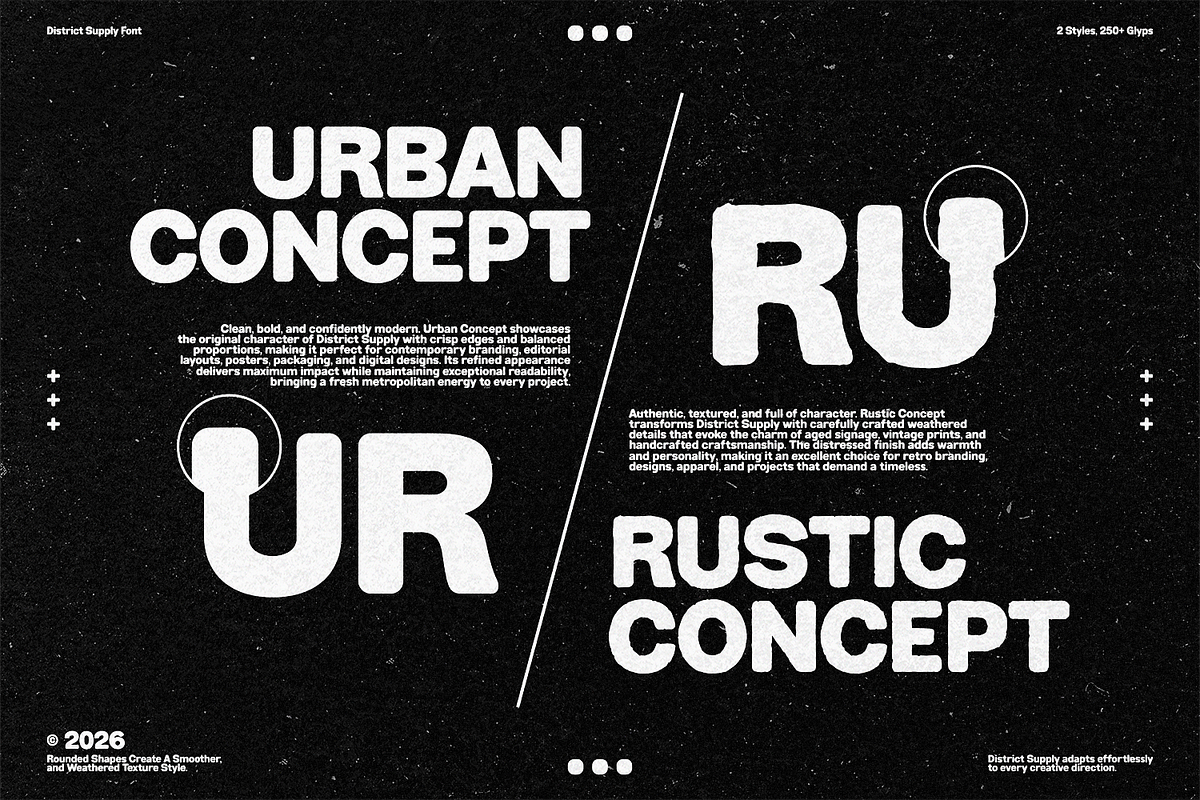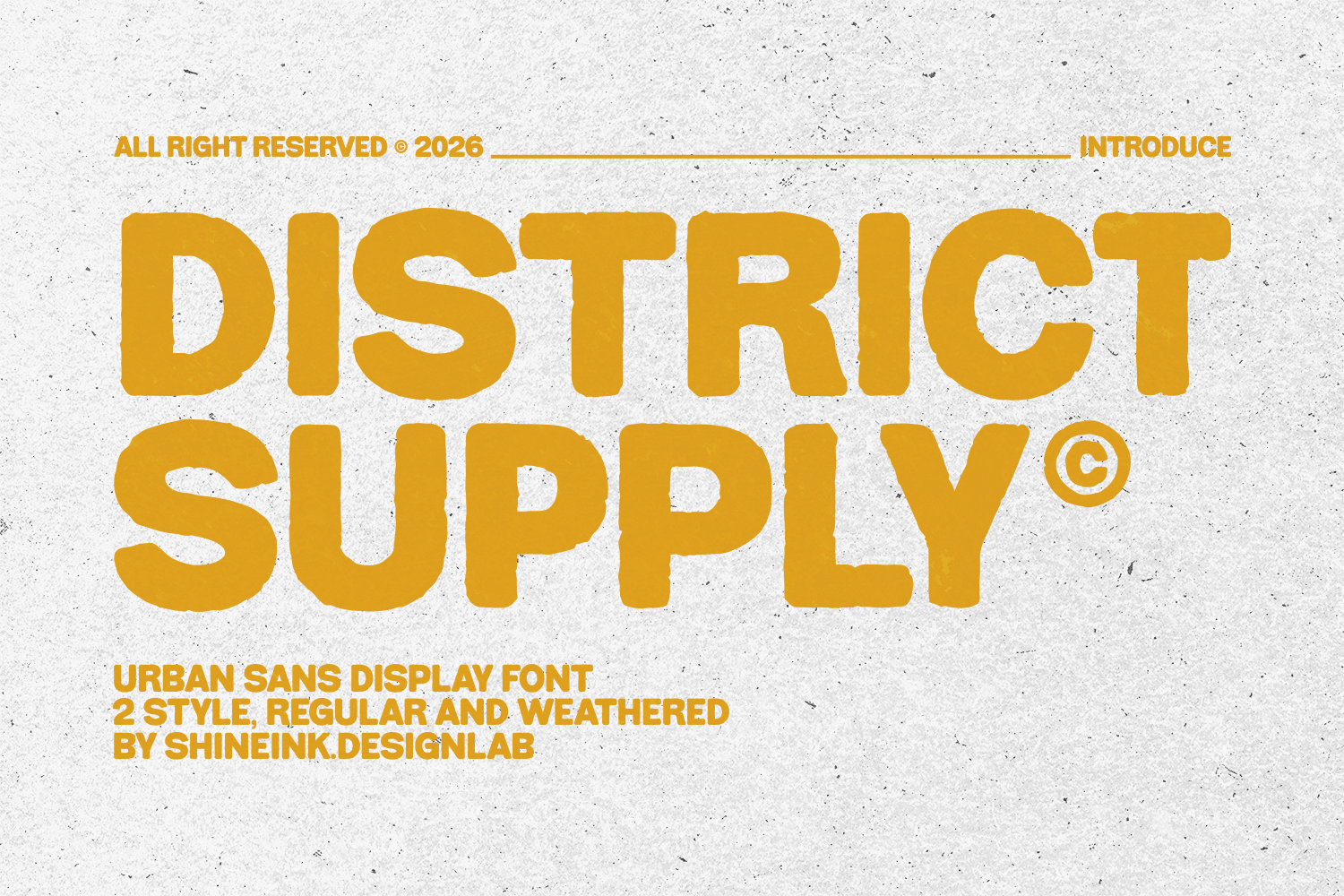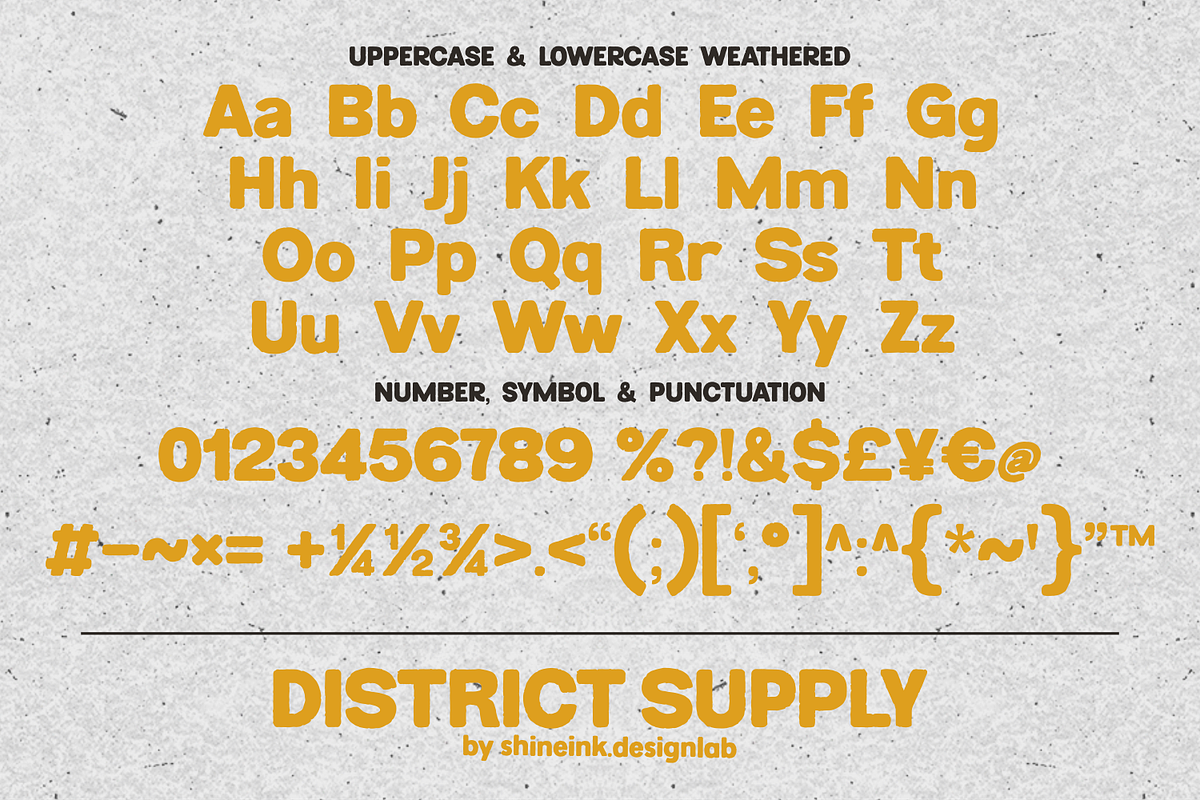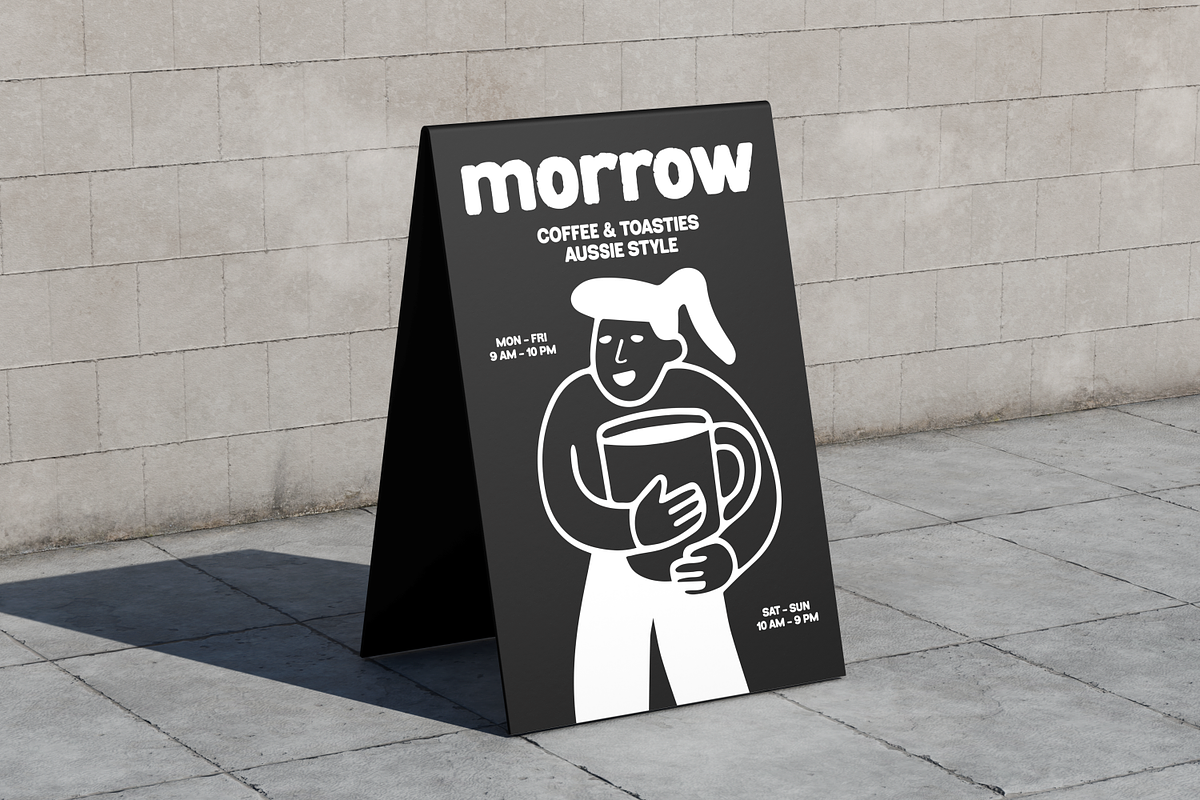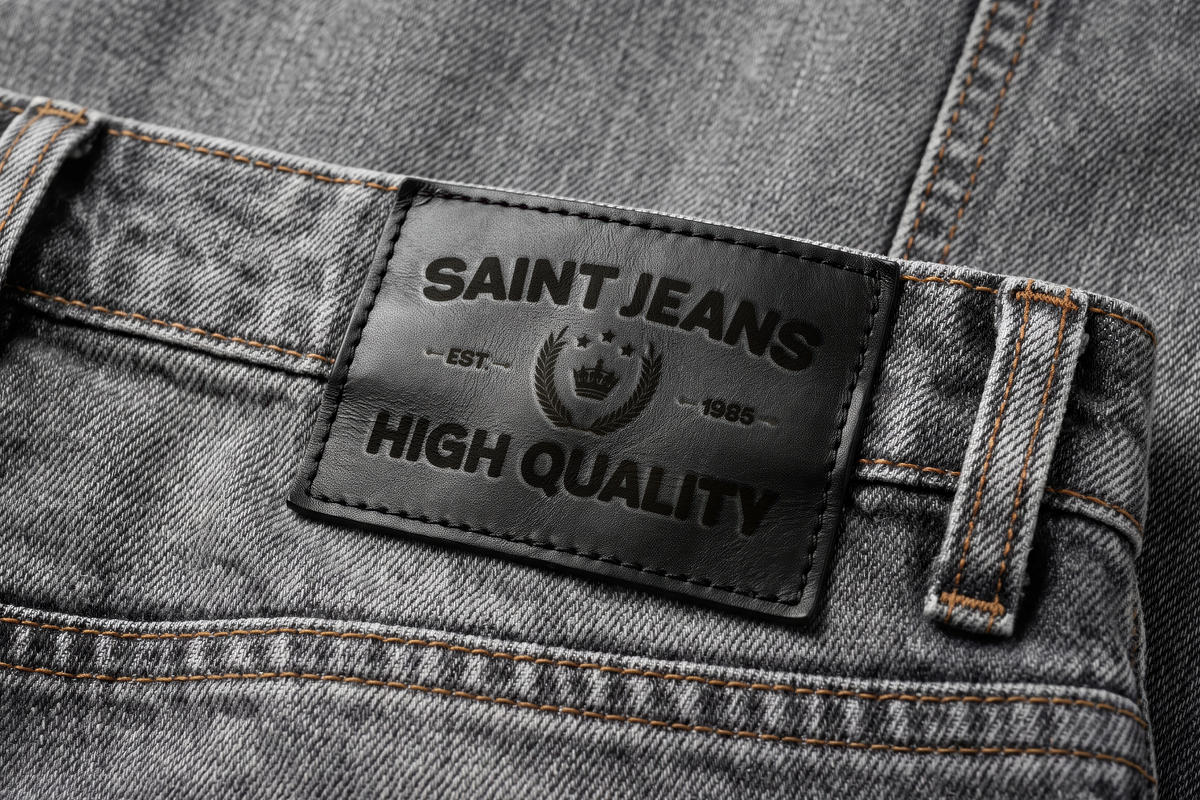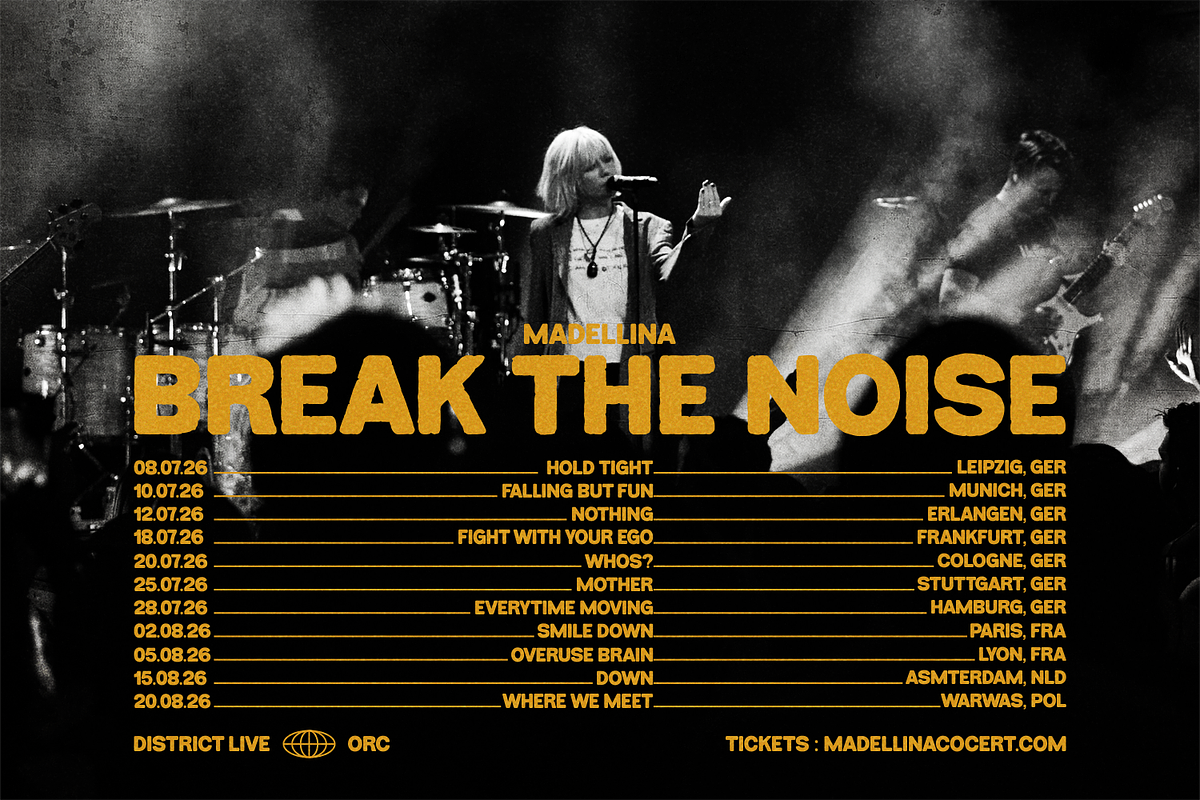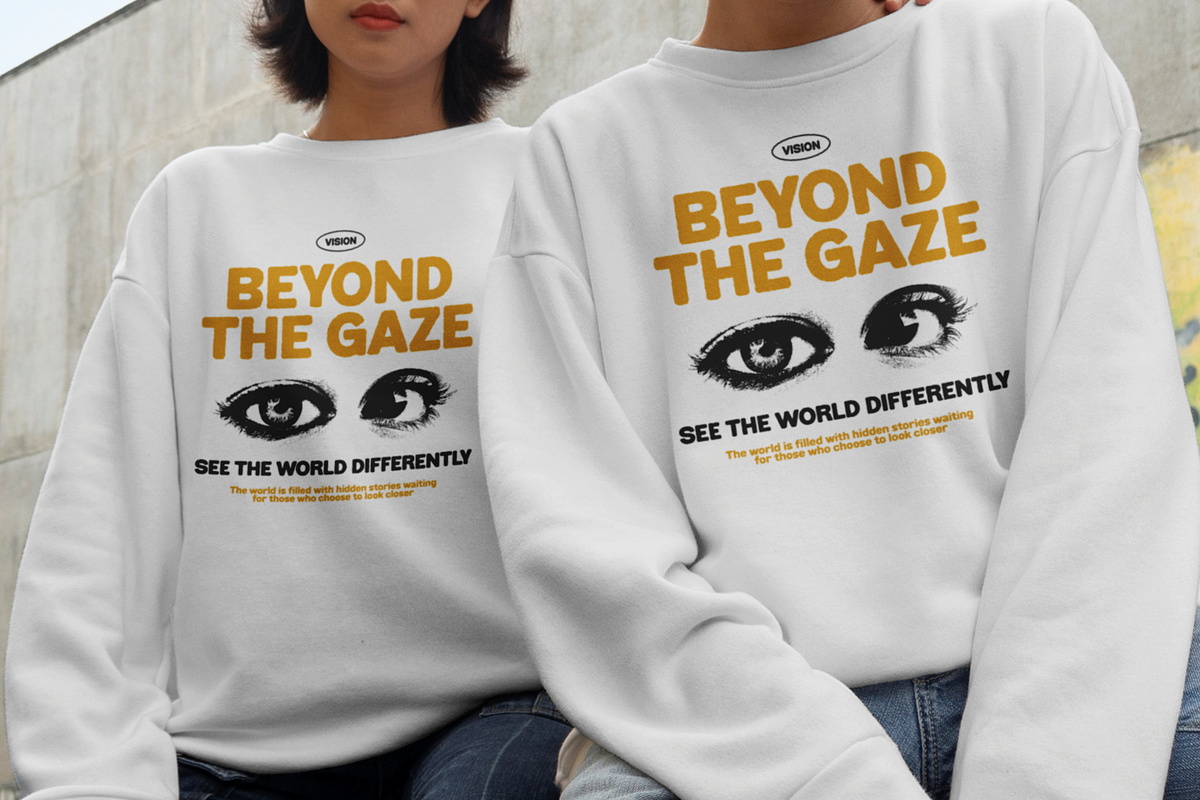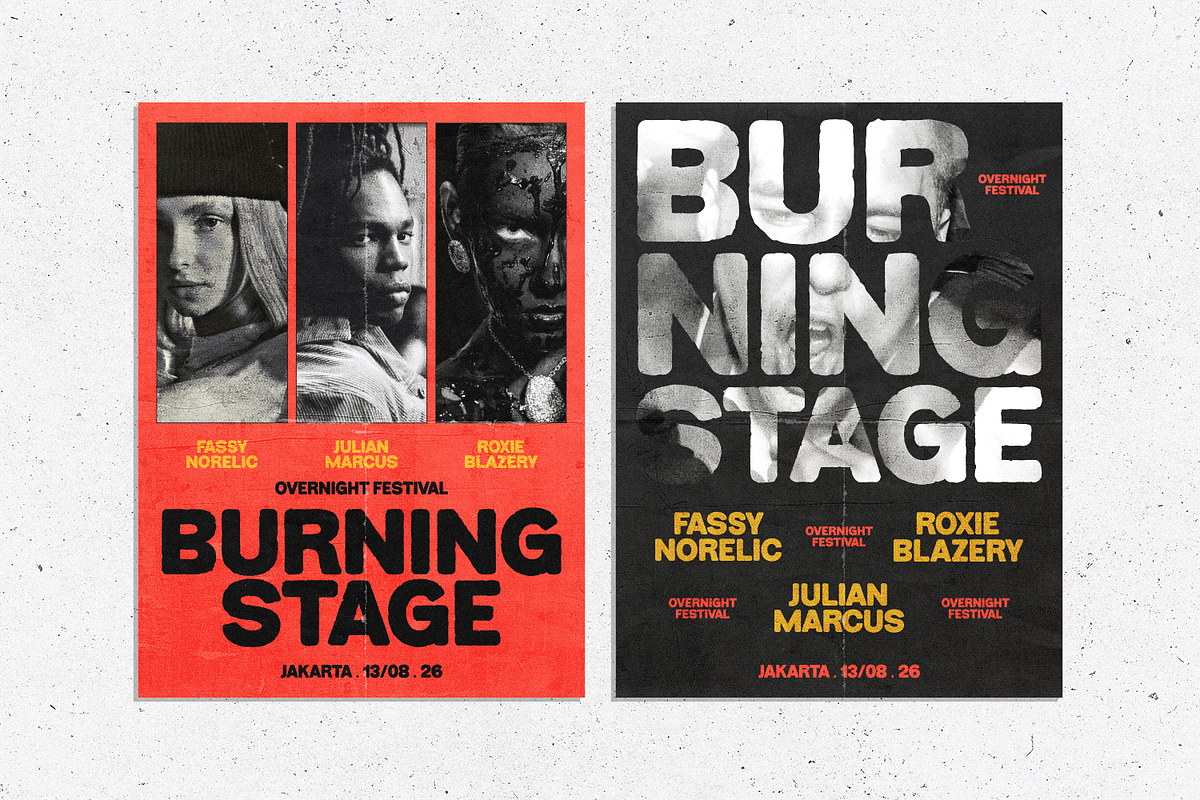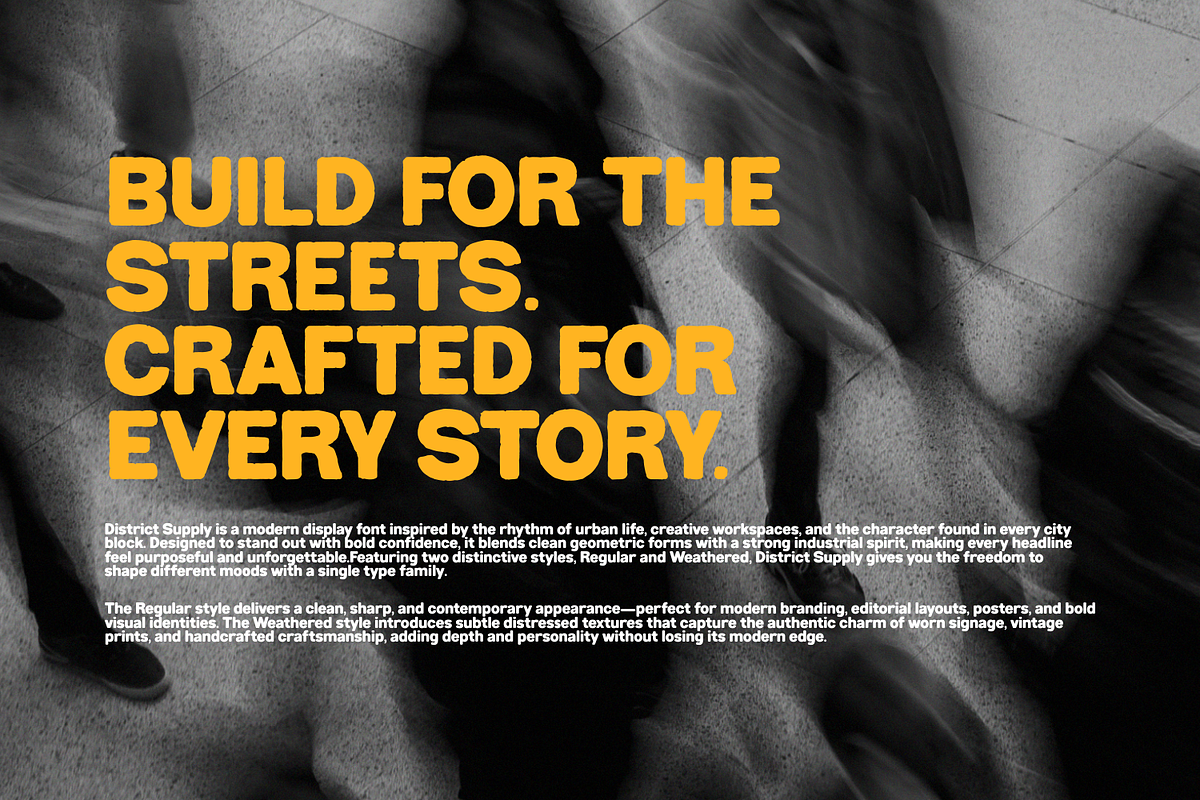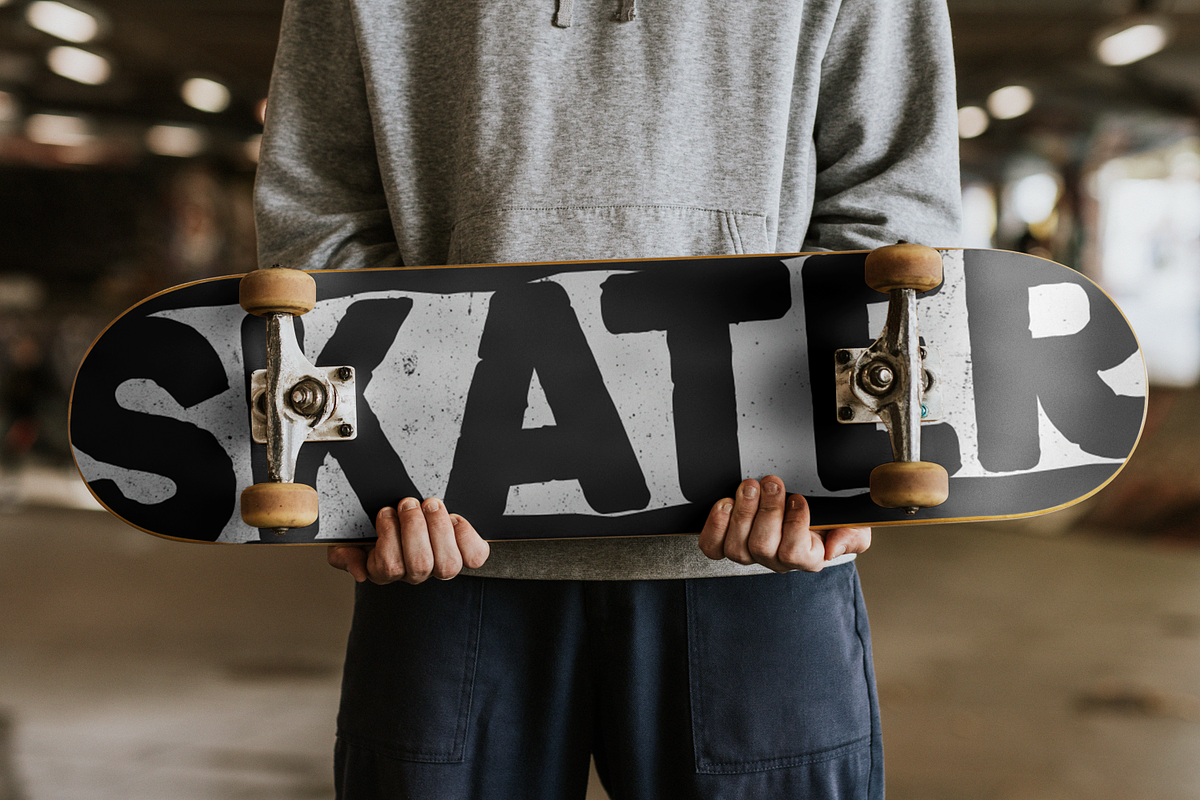
District Supply – Urban Display Font
Meet District Supply, a bold urban display font inspired by vintage street signs, skate culture, workwear labels, and modern apparel branding. Designed with rounded edges and subtle weathered details, District Supply delivers a handcrafted look while remaining clean, bold, and highly legible.
This typeface comes with two versatile styles Regular and Weathered making it easy to switch between a clean modern appearance and a naturally worn vintage texture. Whether you're designing for clothing brands, logos, posters, packaging, or social media graphics, District Supply brings a confident street-inspired personality to every project.
Perfect for designers looking for a bold display font that feels authentic, expressive, and ready for contemporary branding.
1. Lowercase and Uppercase
2. Numerals & Punctuation
3. Accented characters
4. Multiple Languages Supported
6. 2 Style Font : REGULAR, Weathered
8. Alternates & Ligatures